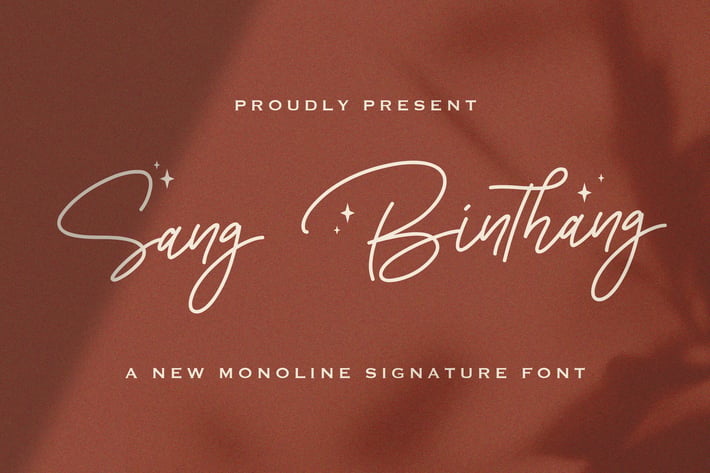
Sang Binthang - Monoline Script Font
Introducing Sang Binthang - Monoline Script Font
Sang Binthang is a flowing monoline script handwritten font, described by an elegant touch, perfect for your favorite projects. Fall in love with its incredibly distinct and timeless style and use it to create spectacular designs!